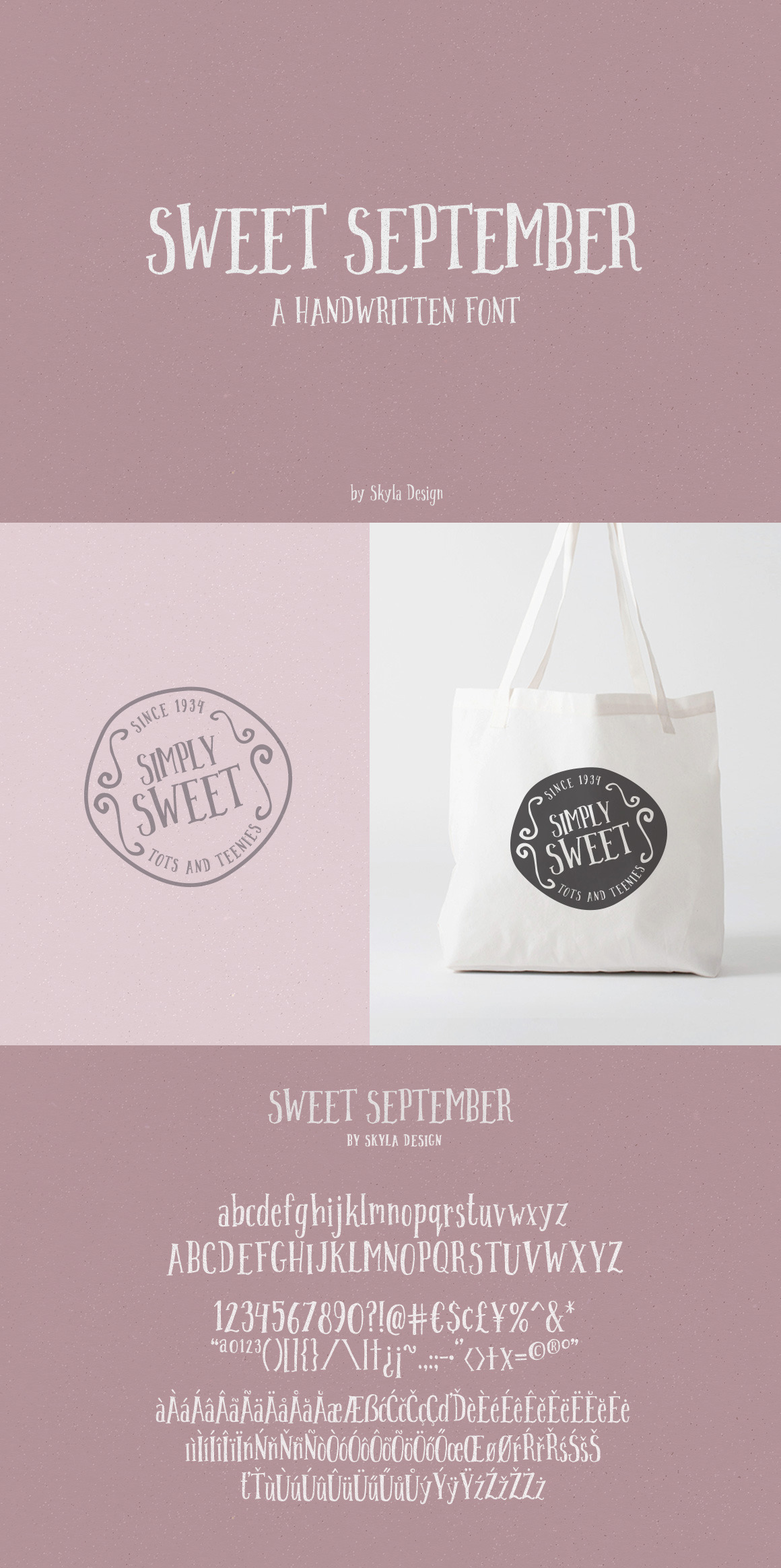
Sweet September handwritten font
Sweet September Script is a condensed handwritten serif. This font comes with bonus vector goodies which are great for package design, invites, quotes, and any other sweet projects you're working on.